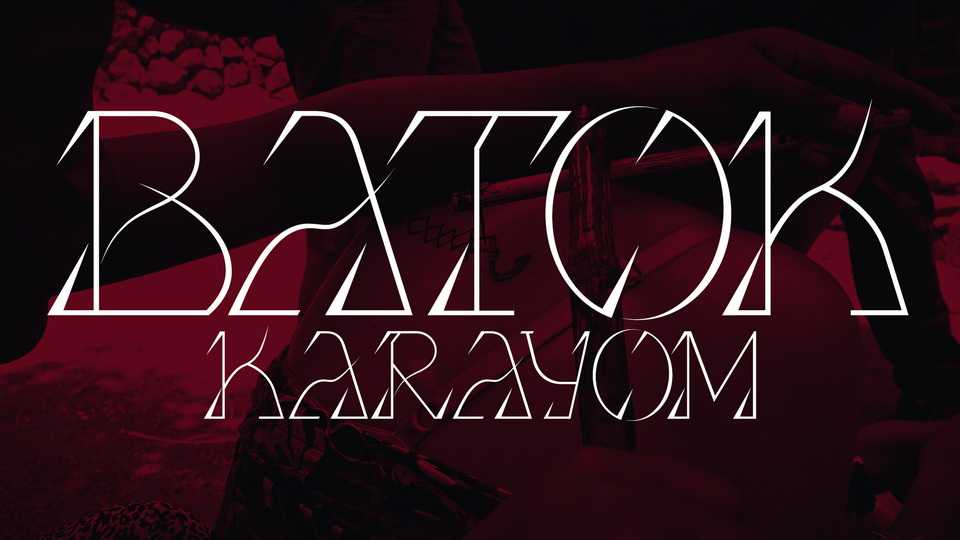
Download Batok font, a sharp and expressive typeface inspired by the ancient ethnic Philippine art of hand-tapped tattoos. Batok works great when set large as posters, headings, editorial projects.
Designer: Corinth